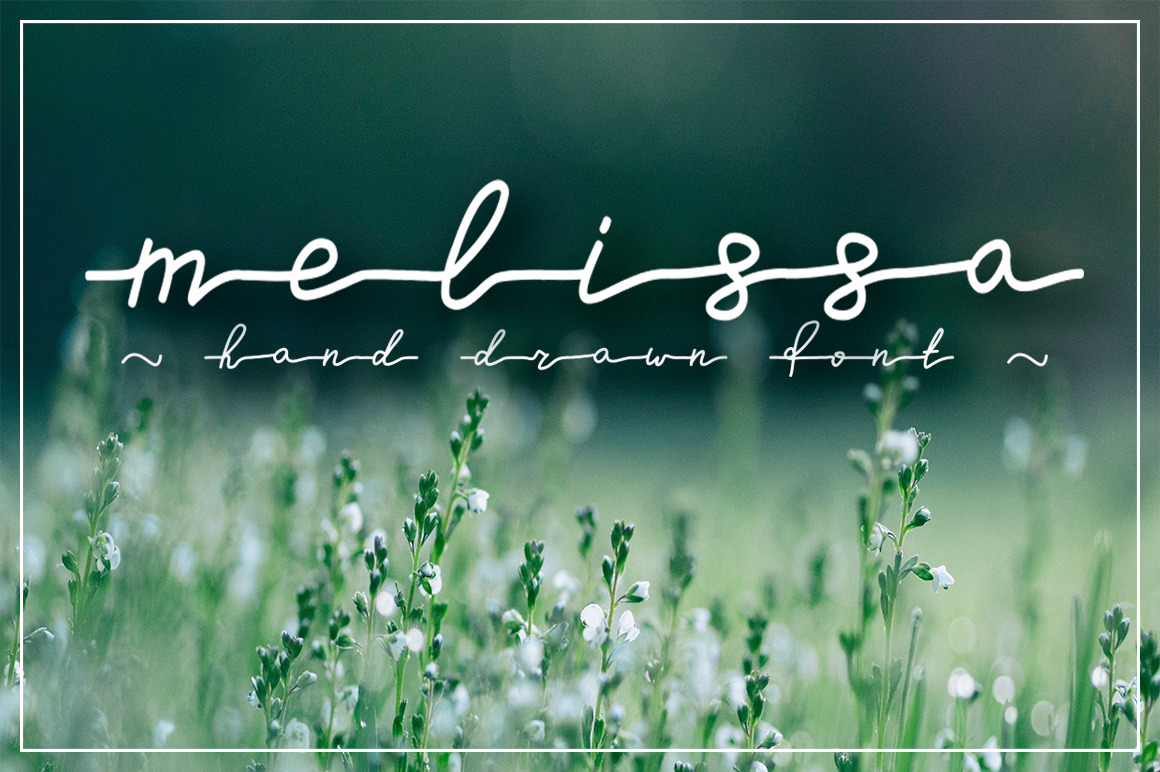
Melissa - hand drawn script font
Here comes Melissa Font - my handwritten script font containing upper & lowercase characters, numerals and a large range of punctuation. It looks great on wedding invitations and other cards, creating cute and accurate effect of hand-writing.